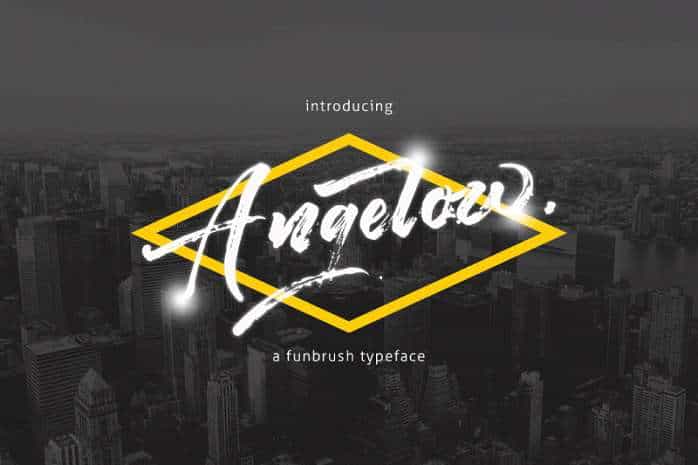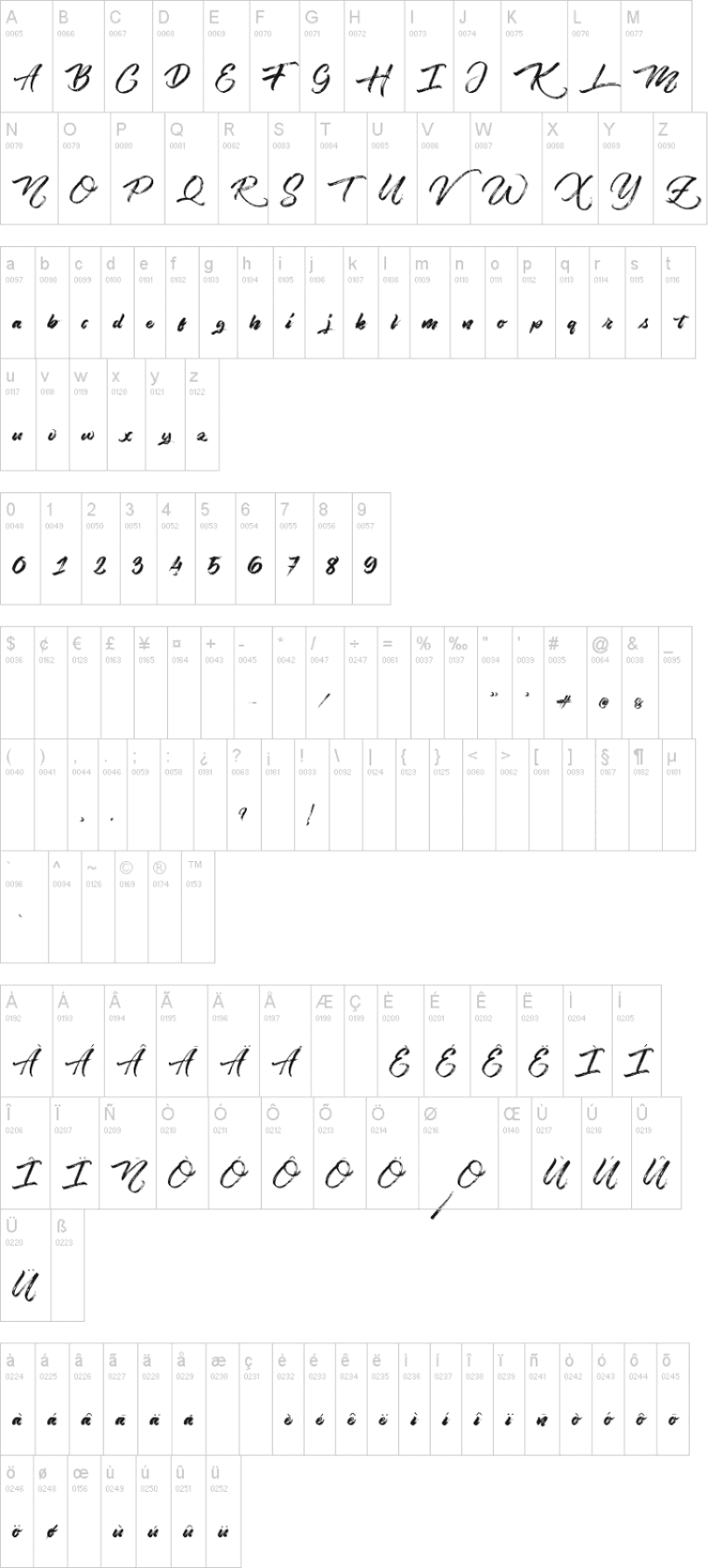
Discover Angelow Font, part of the Brush collection—a versatile and unique font perfect for adding a personal touch to your projects. Download it for free and enjoy crafting designs with style, from invitations to social media posts. This font is available exclusively for personal use, giving you the freedom to create without limits. Unlock your creativity with Angelow Font today!
What is more the font, called Angelow, is a Brush font that is of quite high quality and has been developed by the user Thirtypath who offers it for free download but non-commercial use only. The free version has it that the user is limited to only, a-z, A-Z, but sometimes they also get to include special characters.